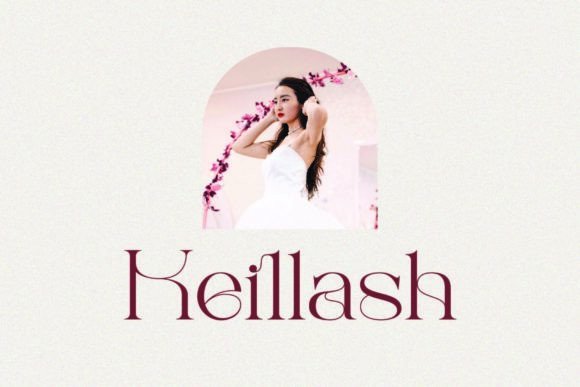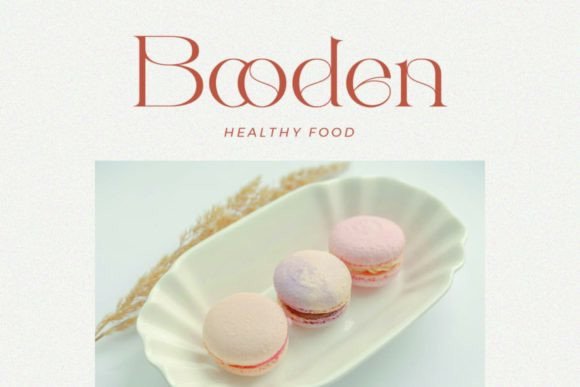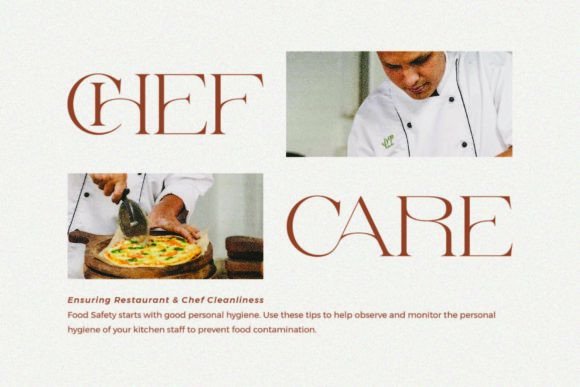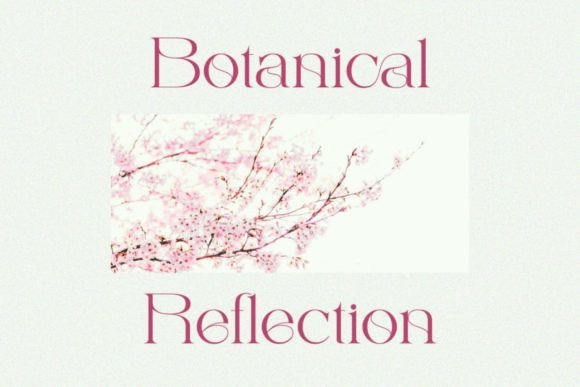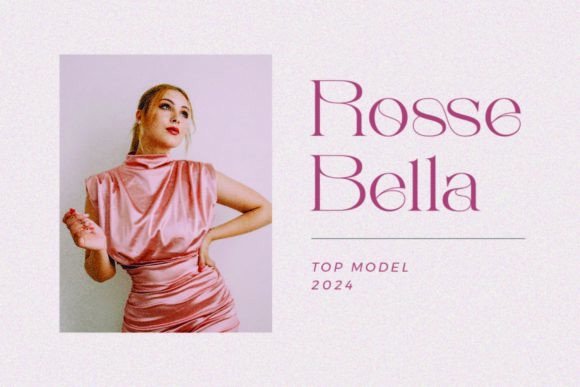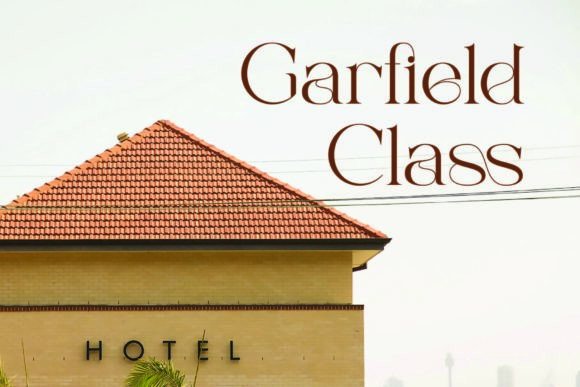
Introducing Beikho Font: Elevate Your Designs with Elegance and Sophistication
In the world of typography, a font can make or break a design. A well-crafted font can elevate a project from ordinary to extraordinary, while a poorly chosen one can detract from its overall impact. For designers and crafters seeking to add a touch of elegance and sophistication to their work, Beikho Font is an excellent choice. This stunning serif font boasts a delicate and classy look, making it perfect for a wide range of applications.
The Story Behind Beikho Font
Beikho Font was designed with one goal in mind: to create a typeface that is both beautiful and functional. The creators of Beikho aimed to craft a font that is not too thin and not too thick, but rather balanced and varied. The result is a font that exudes refinement and poise, making it ideal for designers who want to add a touch of luxury to their projects.
Key Features of Beikho Font
- Elegant Serif Design: Beikho Font features a classic serif design, complete with delicate flourishes and subtle nuances.
- Balanced and Varied: The font’s balanced and varied strokes ensure that it is easy to read and visually appealing.
- Delicate and Classy Look: Beikho’s delicate and classy appearance makes it perfect for designs that require a touch of sophistication.
- Versatile: Beikho Font is suitable for a wide range of applications, from print materials to digital projects.
What Makes Beikho Font Special?
So, what sets Beikho Font apart from other typefaces? Here are a few reasons why designers and crafters are raving about this elegant serif font:
- Unique Character: Beikho Font has a distinct personality that is both elegant and refined.
- High Readability: The font’s balanced and varied strokes ensure that it is easy to read, even at small sizes.
- Flexibility: Beikho Font can be used for a wide range of applications, from headings and titles to body text and captions.
How to Use Beikho Font in Your Designs
Beikho Font is incredibly versatile and can be used in a variety of design applications. Here are a few ideas to get you started:
- Print Materials: Use Beikho Font in print materials such as brochures, flyers, and business cards to add a touch of elegance and sophistication.
- Digital Projects: Beikho Font is perfect for digital projects such as website headers, social media graphics, and email marketing campaigns.
- Branding and Packaging: Use Beikho Font to create stunning brand identities and packaging designs that stand out from the crowd.
In conclusion, Beikho Font is an exceptional serif font that is sure to elevate your designs to new heights. Its elegant and refined appearance, balanced and varied strokes, and versatility make it an excellent choice for designers and crafters seeking to add a touch of sophistication to their work. Whether you’re working on a print project, digital design, or branding and packaging, Beikho Font is an excellent choice.